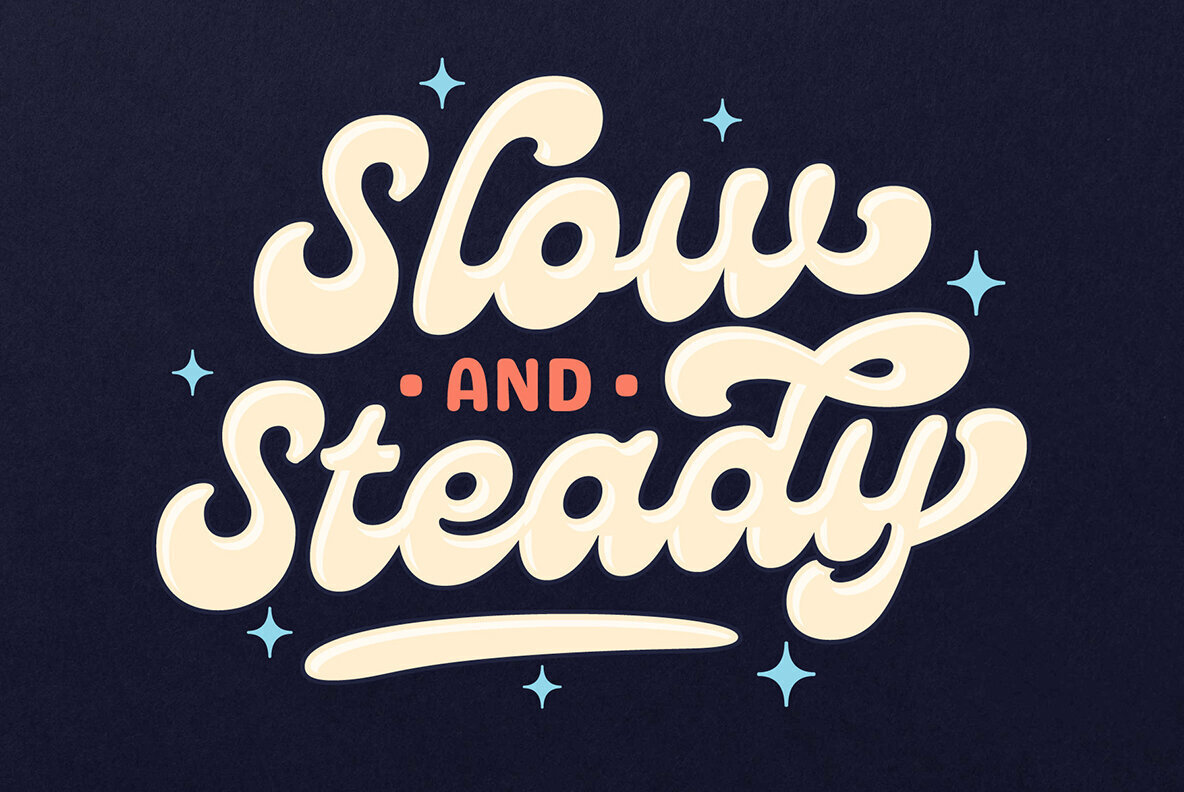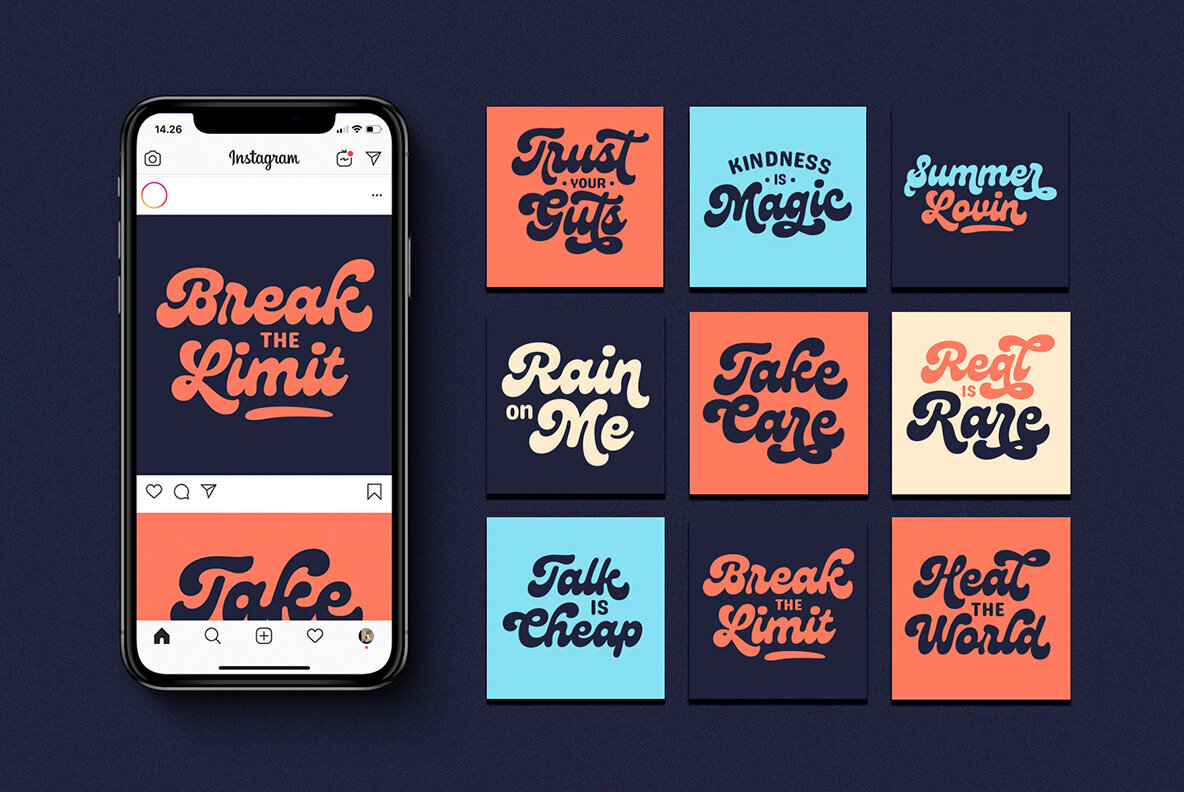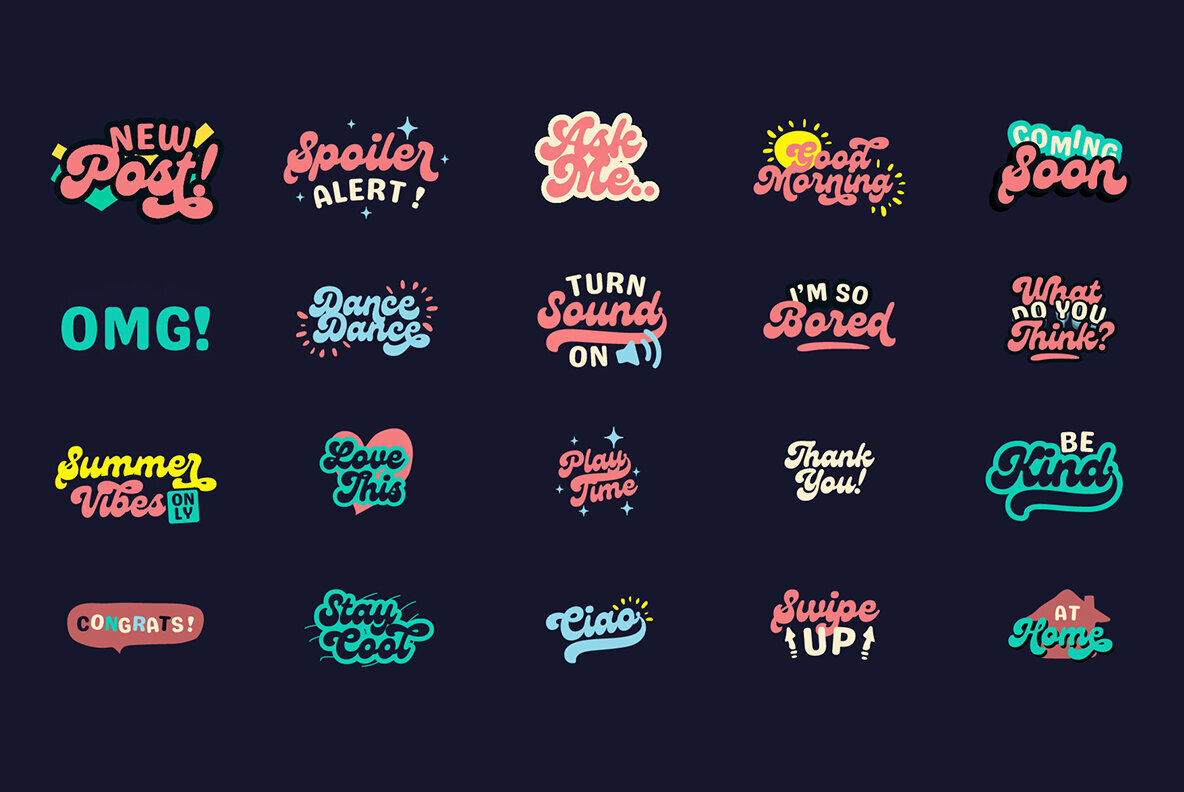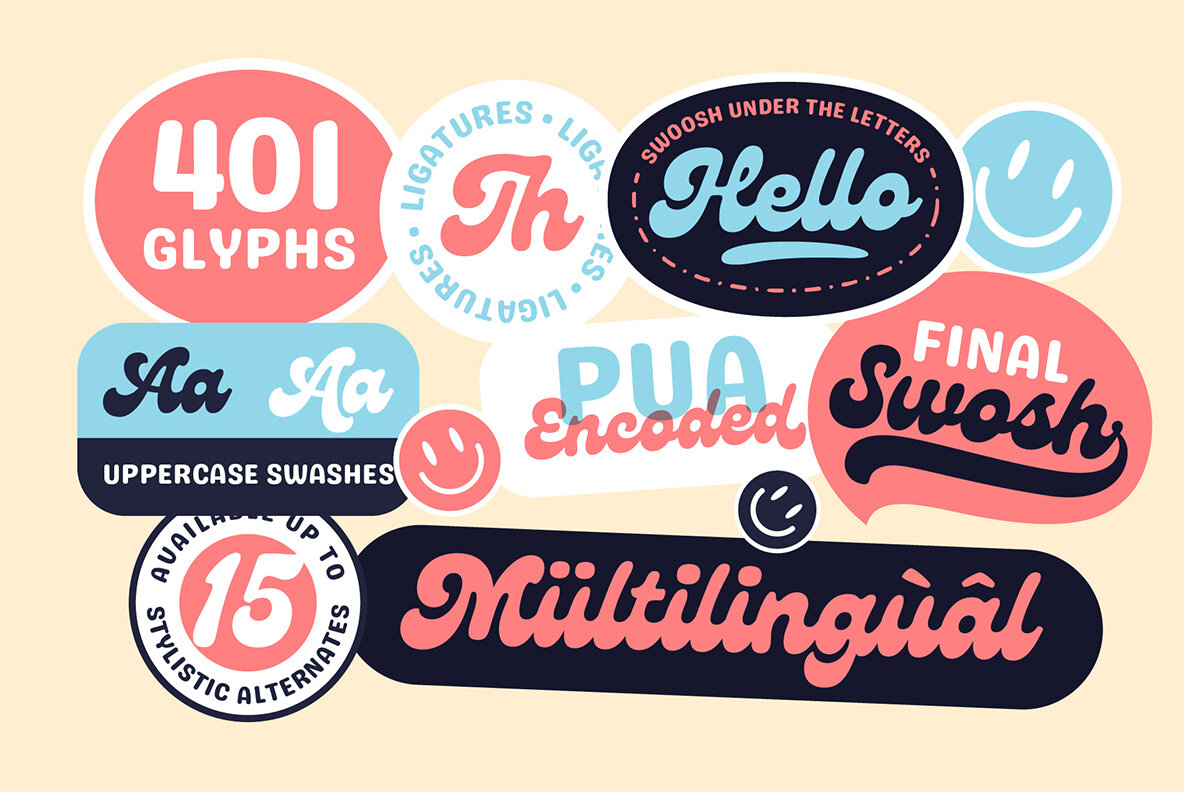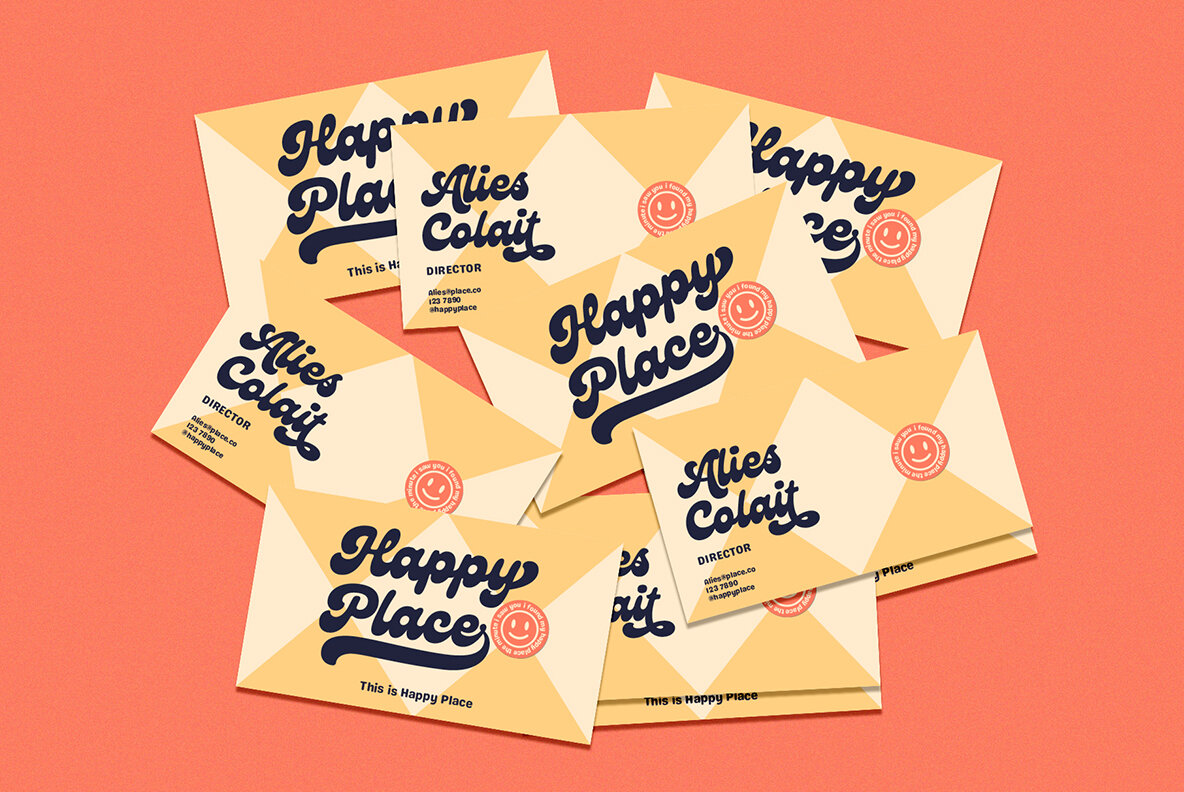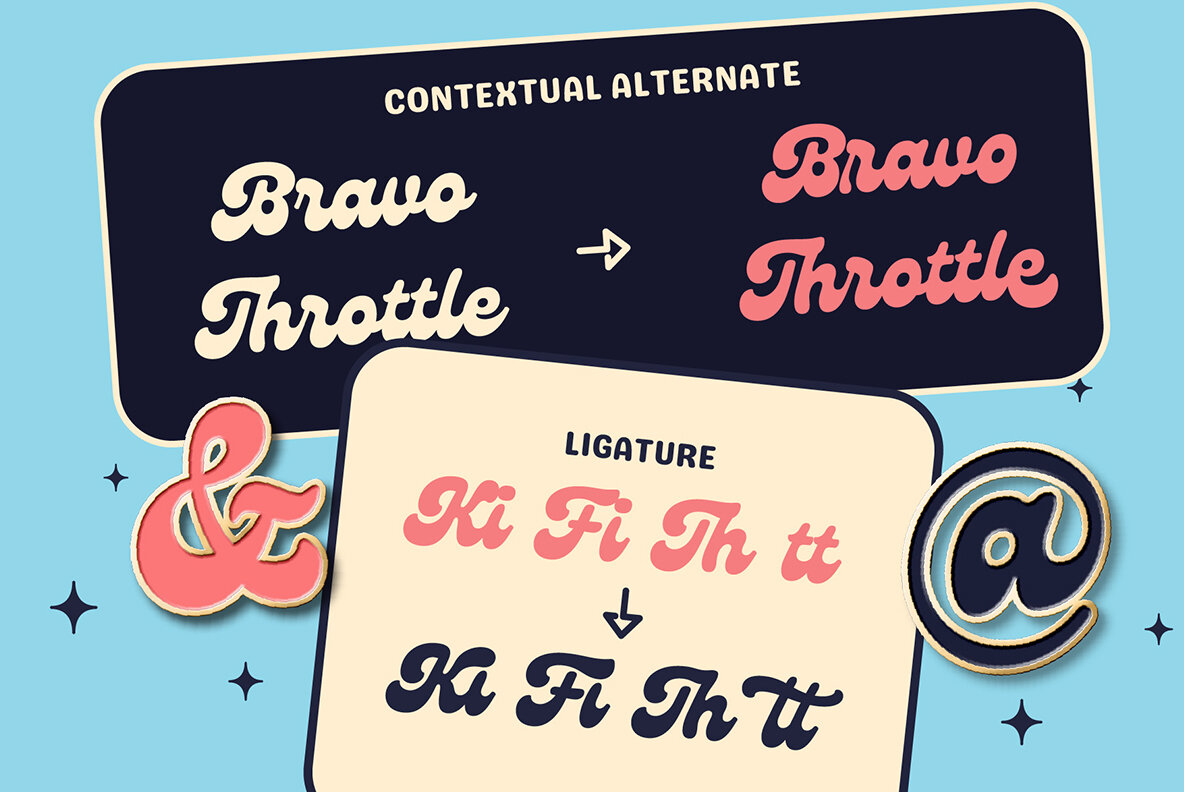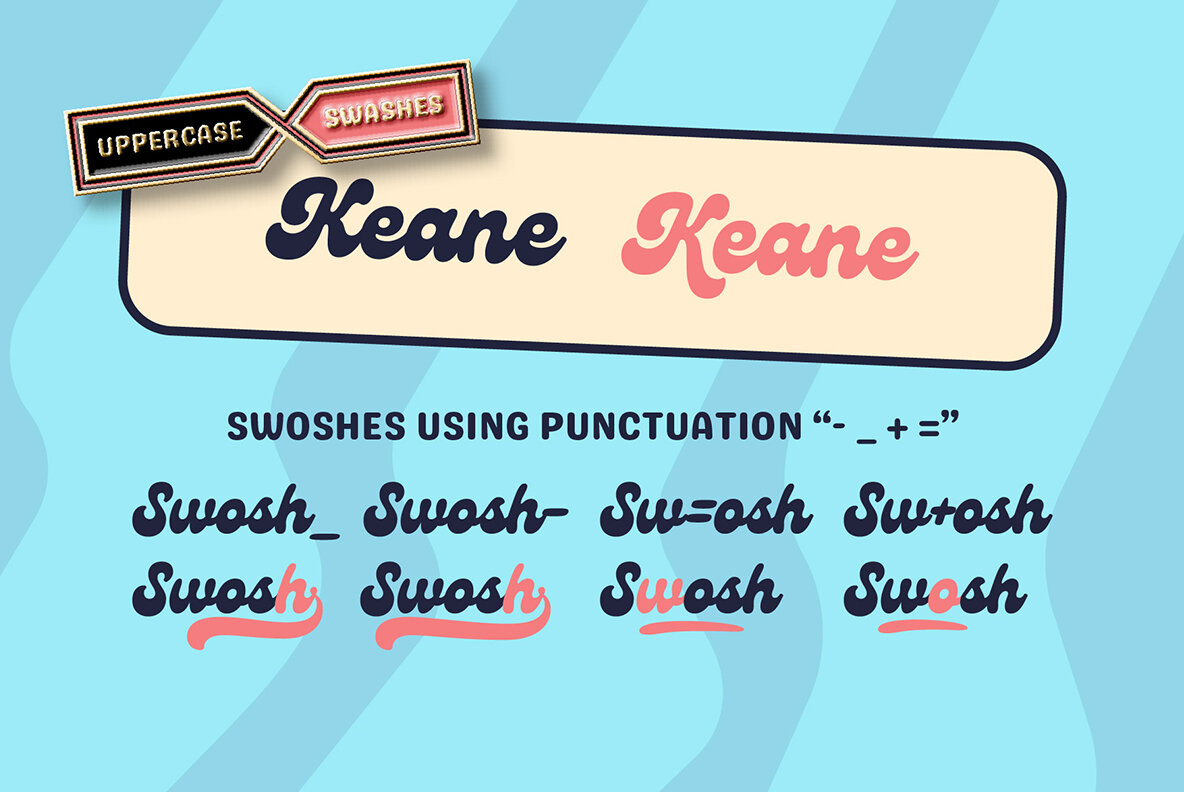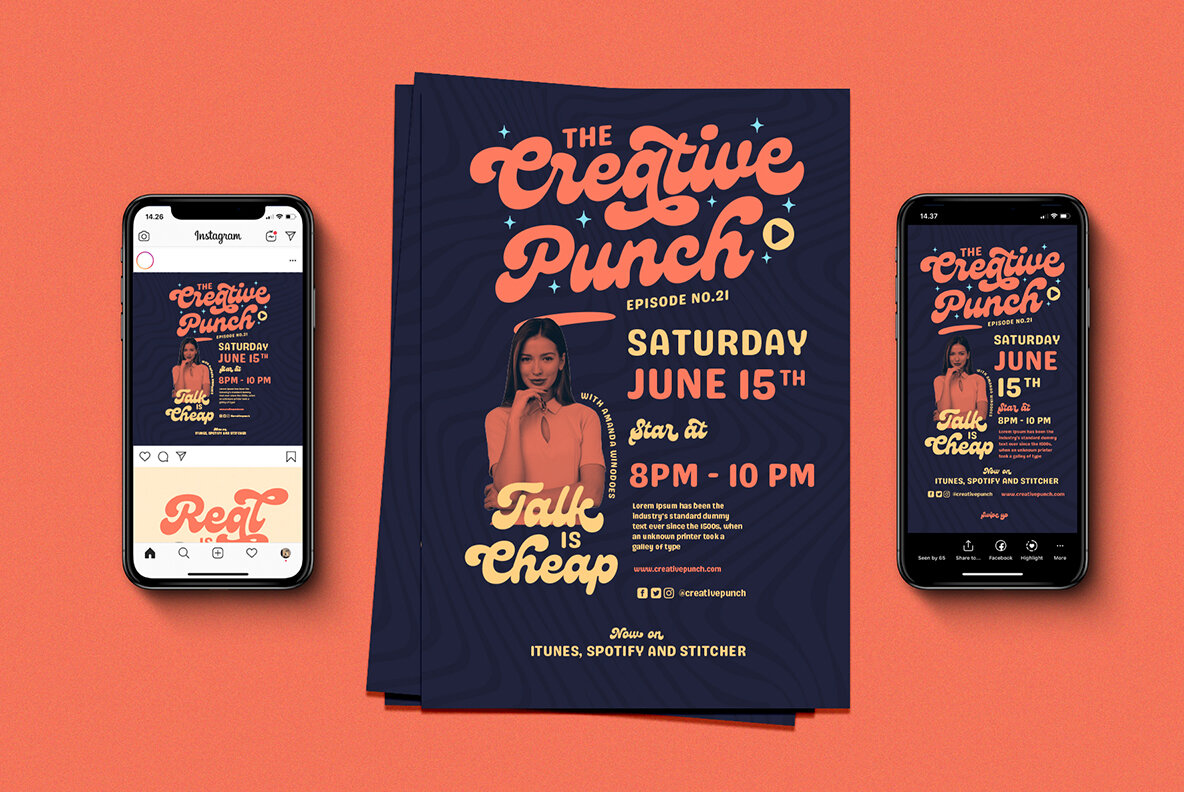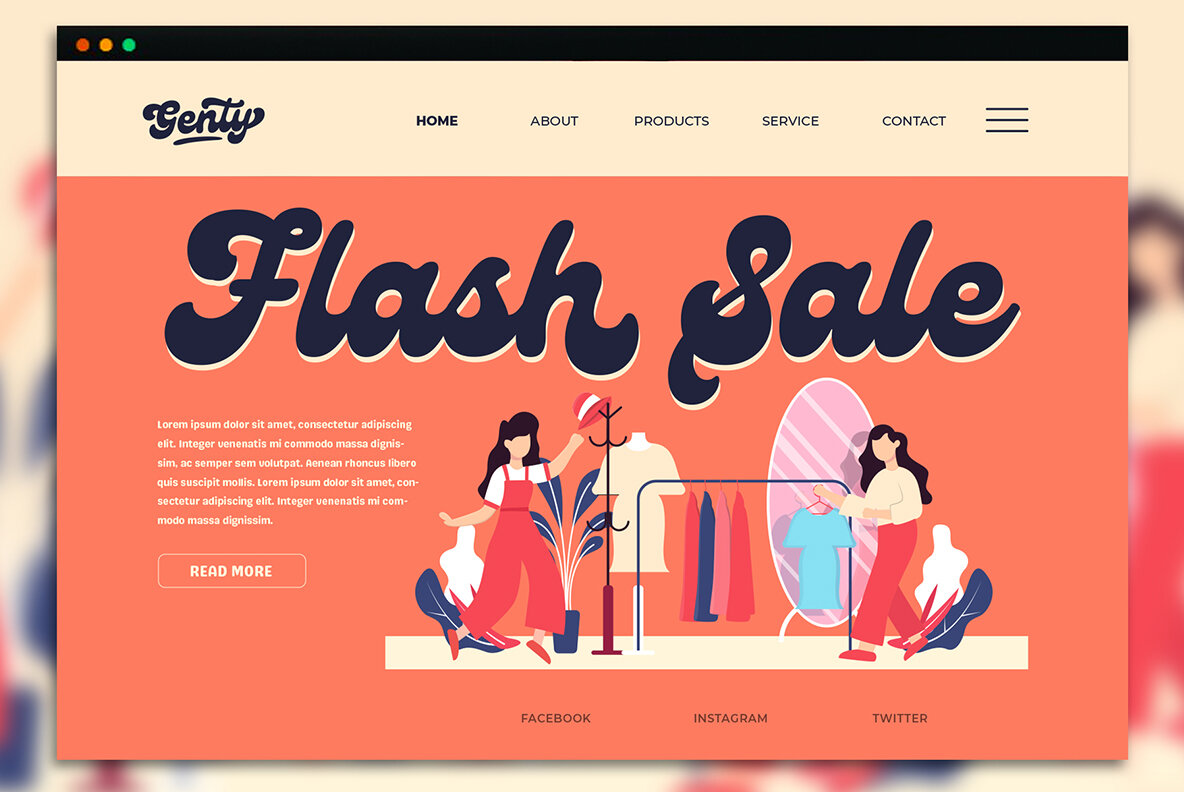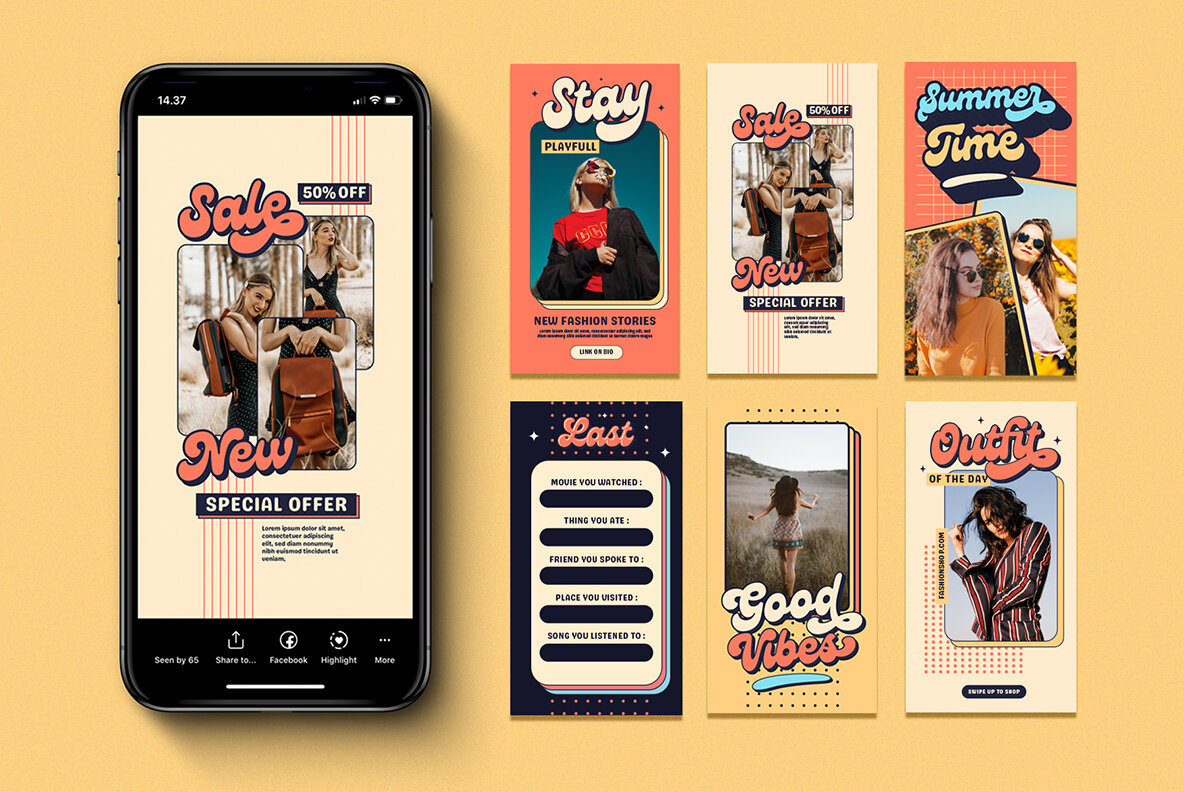
Genty, a new typeface that's both fun and fashionable. The design features an imaginative combination of two popular script fonts to create something fresh with the perfect amount of personality! Whether you're looking for trendy or cute styles in your designs Genty will be sure not disappoint.